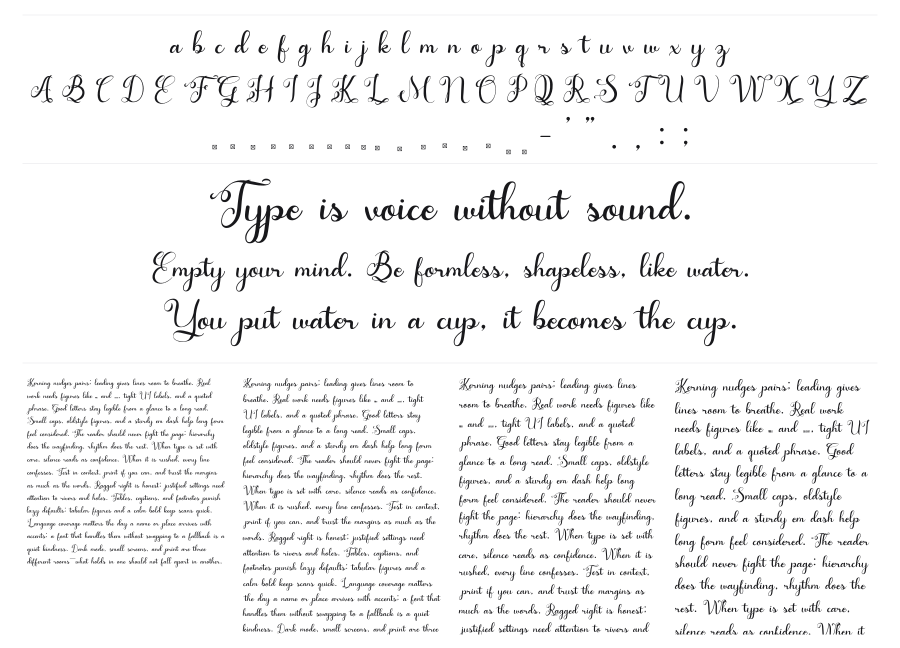
Alyna
by Yesie Erma Yunita
Alyna is a buoyant casual script with fluid connected strokes and a lively, undulating rhythm. Thick downstrokes fade into hairline curves, giving it just enough calligraphic character to feel polished without losing its handmade warmth. It suits wedding stationery, product packaging, and any brand that wants to feel personal and inviting.